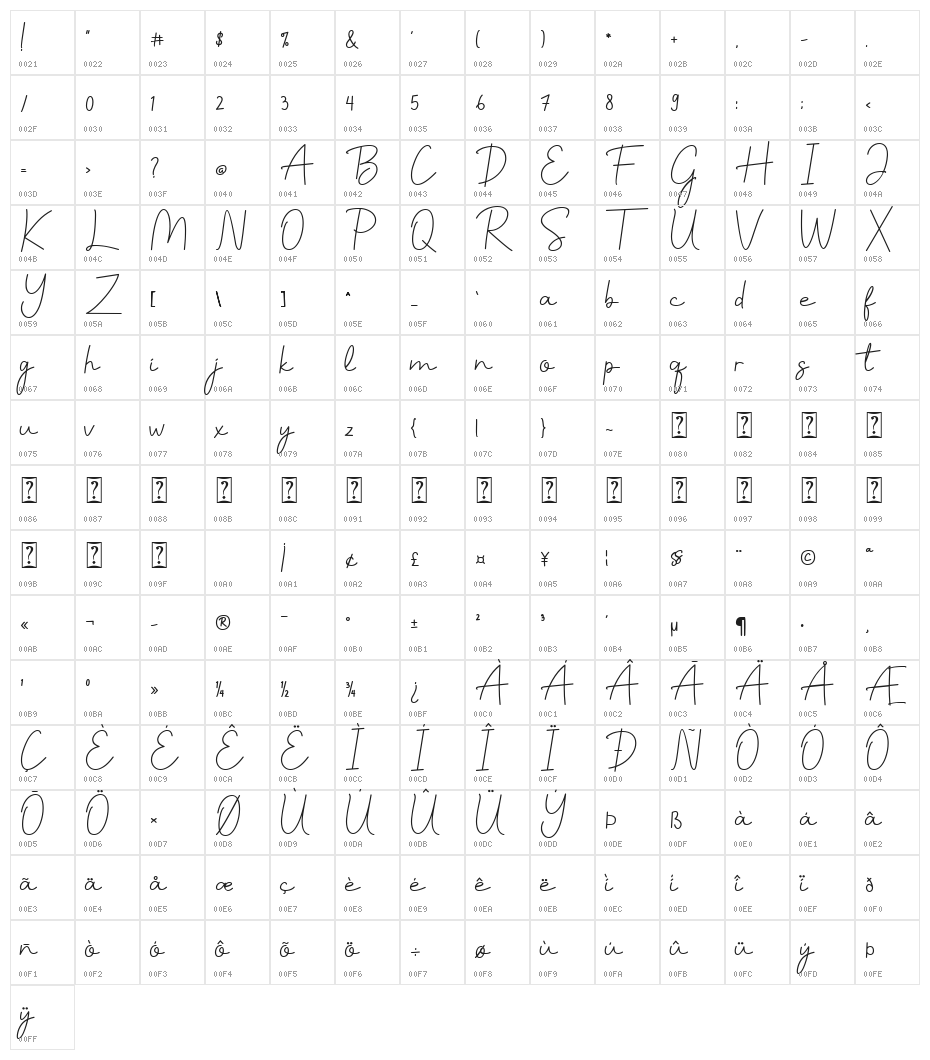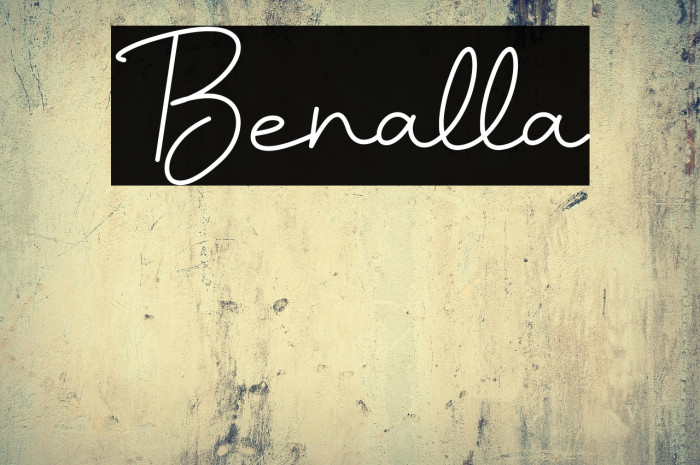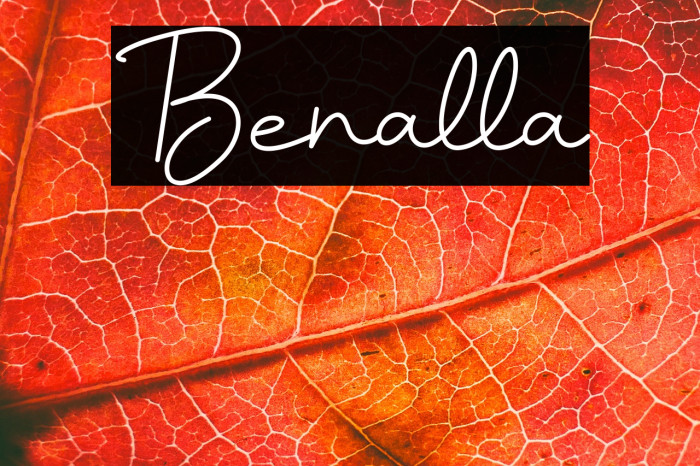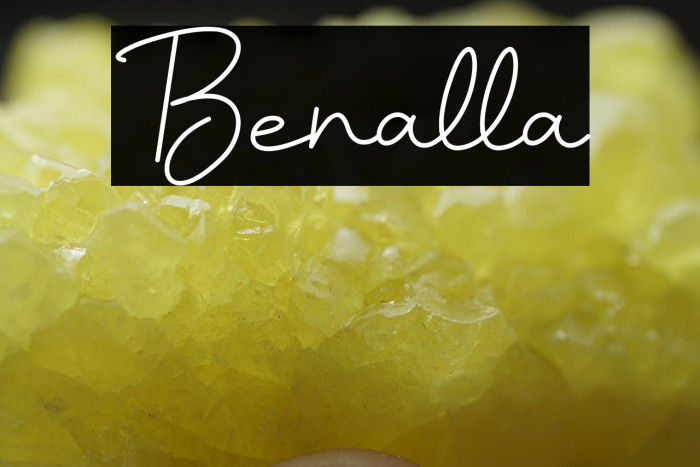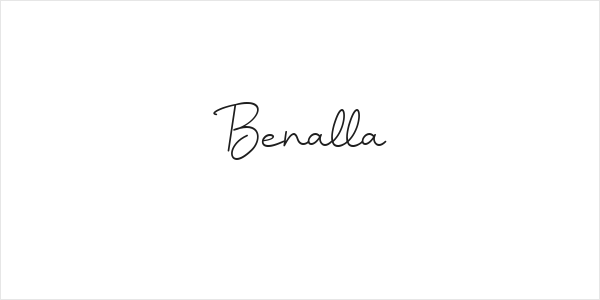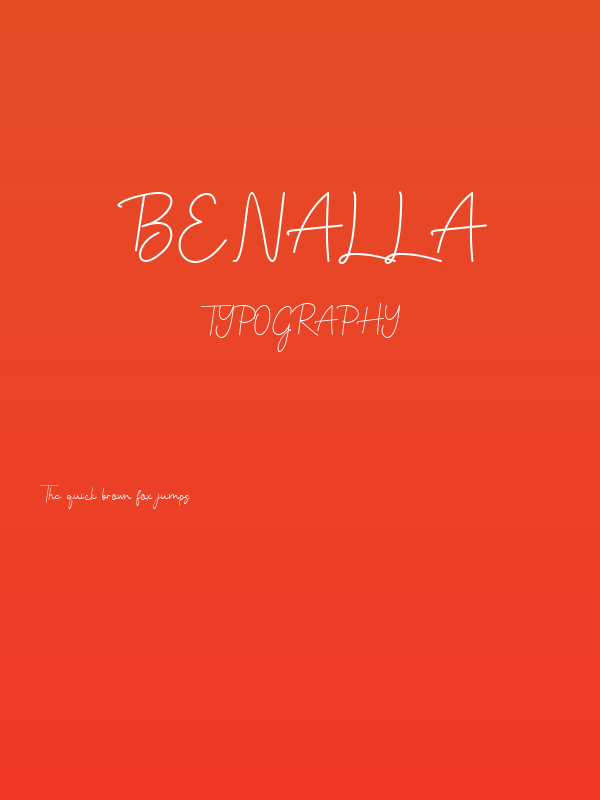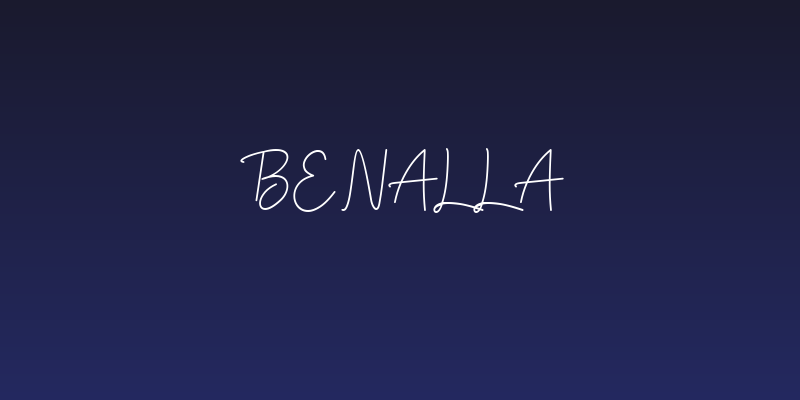
Benalla Font
Benalla Description
This font features a playful and fluid handwritten style, characterized by its smooth, flowing lines and slightly irregular letterforms. The uppercase letters are tall and narrow, with a whimsical touch that adds a sense of movement and personality. The lowercase letters maintain a consistent flow, with some letters connecting seamlessly to others, enhancing the handwritten feel. The numerals are clear and legible, matching the overall style with a slight slant. Special characters are included, maintaining the same playful and informal aesthetic. This font exudes a casual and friendly vibe, making it suitable for creative and informal applications.